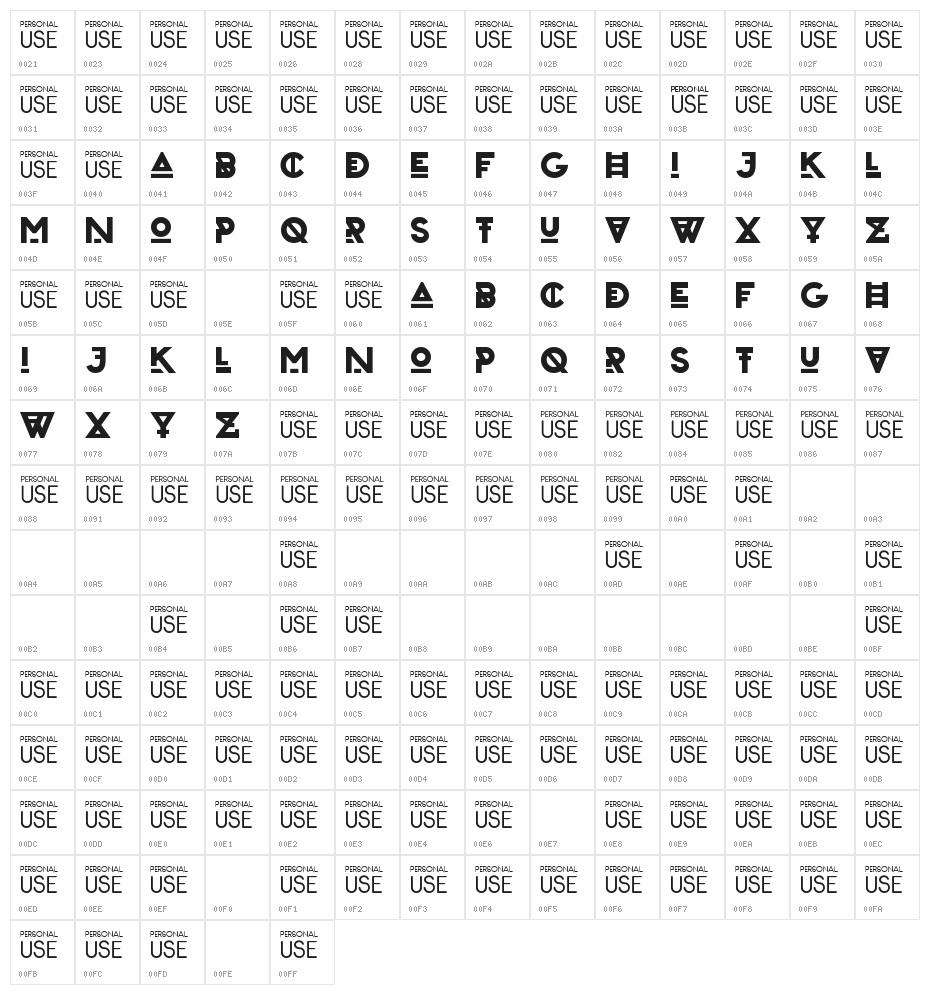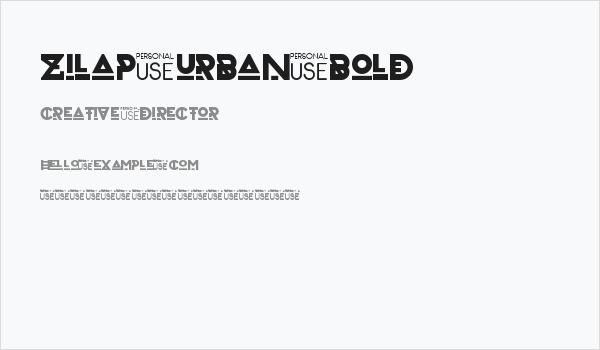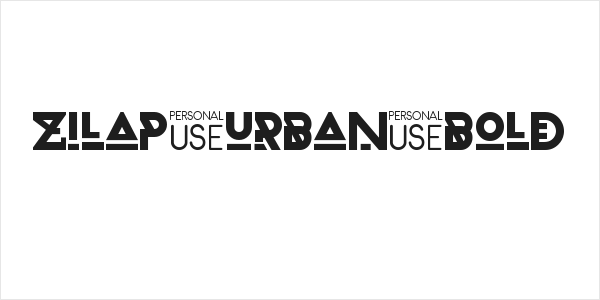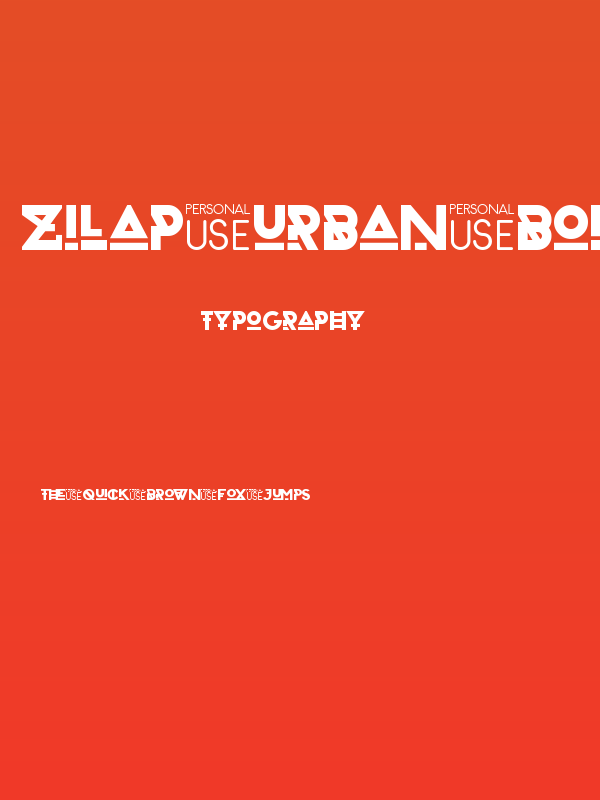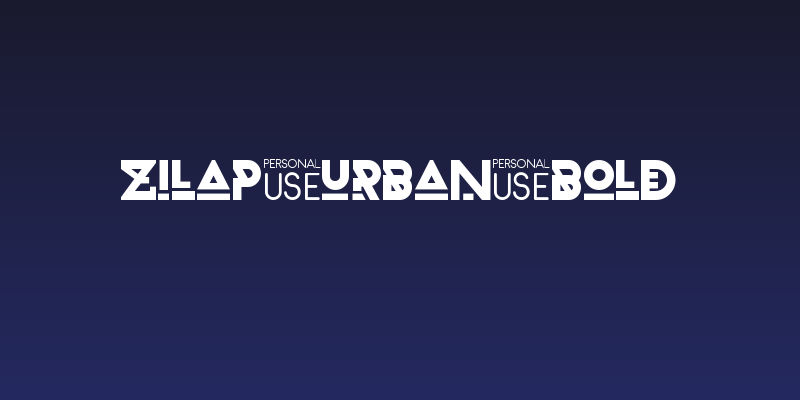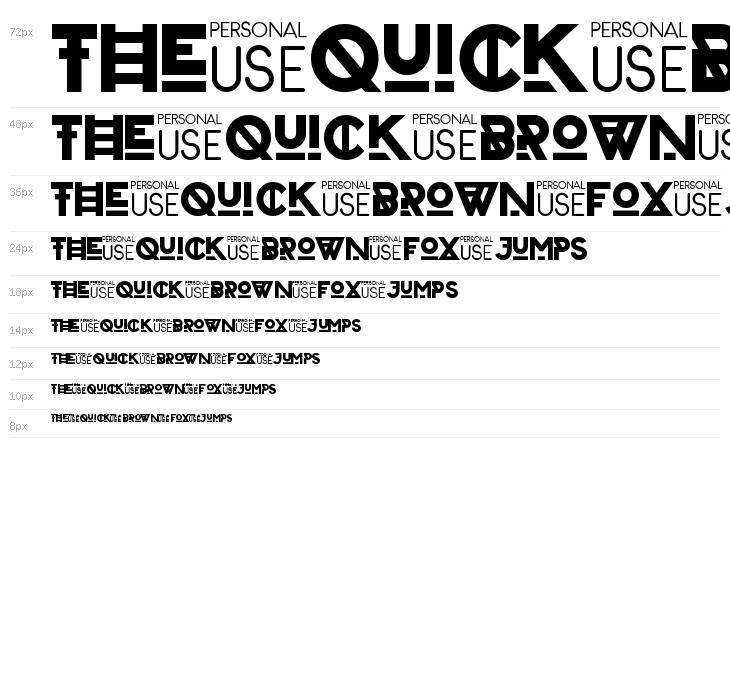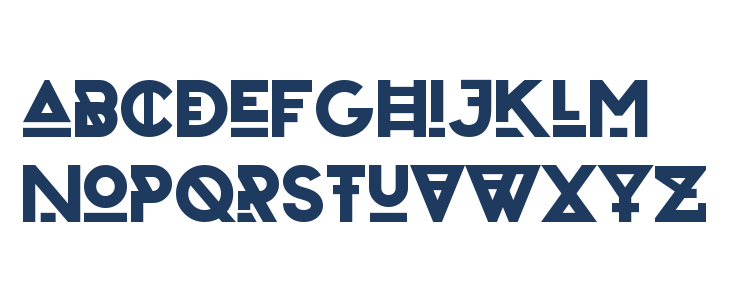
Zilap Urban Bold Font
Zilap Urban Bold Description
This font features a bold and geometric design, characterized by its strong, angular lines and unique shapes. The uppercase letters are particularly striking, with some characters incorporating horizontal lines that create a layered effect. The font has a modern and urban aesthetic, making it suitable for contemporary designs. Its boldness ensures high visibility, while the geometric elements add a distinctive flair. The font's style is consistent across all characters, maintaining a cohesive look that is both eye-catching and versatile.
| Proposed Projects | Ideal for branding, posters, headlines, and urban-themed designs. |